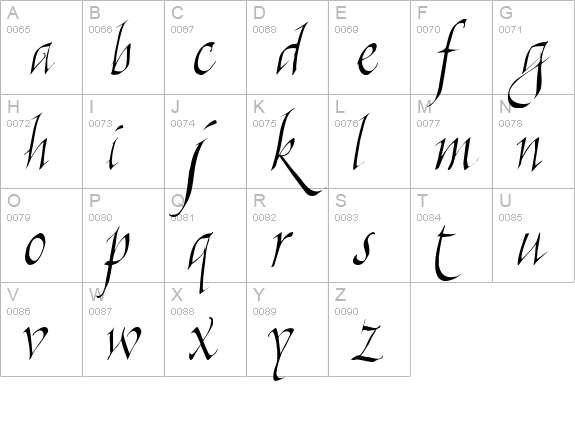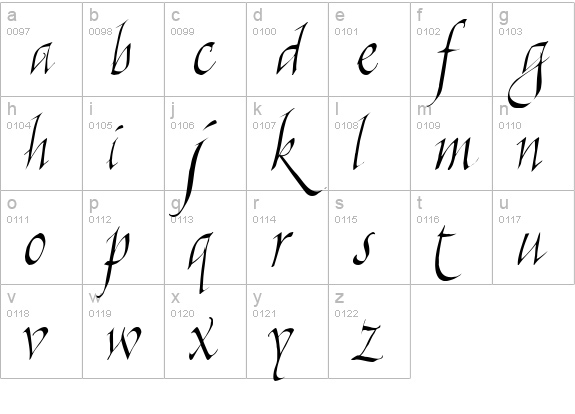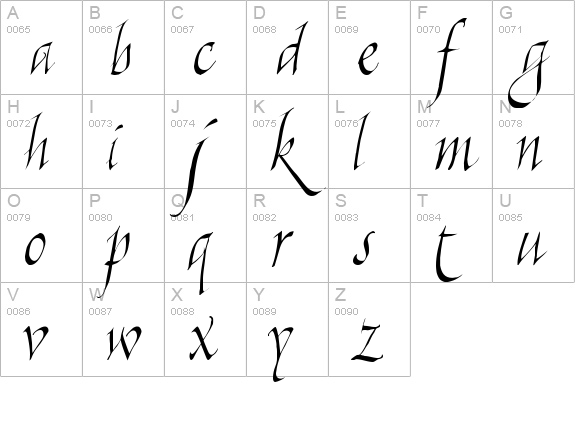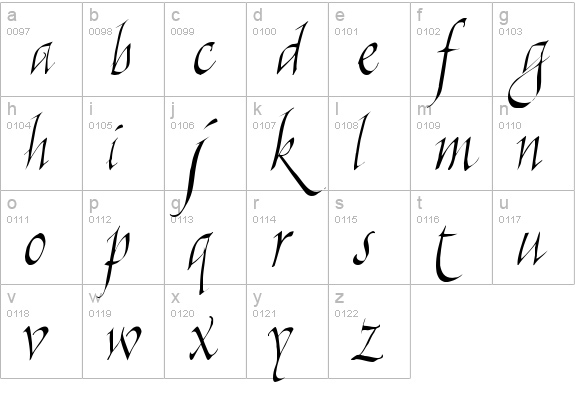
Killigraphy Font Details
Killigraphy font is a stunning display typeface that effortlessly combines elegance with a touch of edginess. Its sharp, angular strokes give it a unique and modern look that is perfect for creating eye-catching designs. The font features intricate details that make it stand out from the crowd, making it ideal for branding, logos, posters, and more. Best of all, Killigraphy font is available for free download at FontsMarket.com. Whether you're a professional designer looking to add a new font to your collection or a hobbyist wanting to experiment with different styles, Killigraphy font is a fantastic choice. Don't miss out on this versatile and striking typeface that will take your designs to the next level. Download it today and let your creativity soar with Killigraphy font!